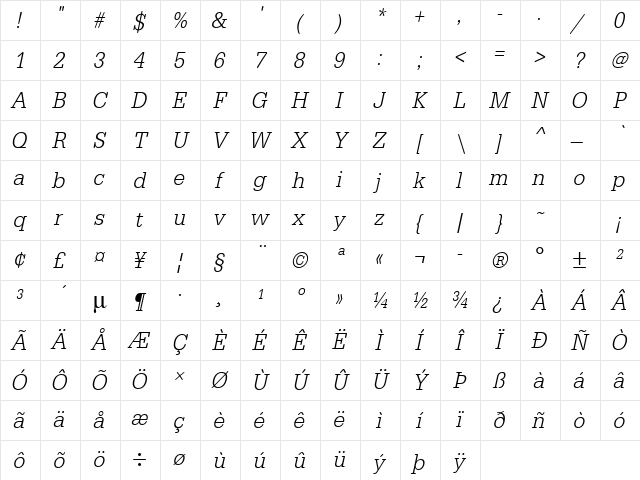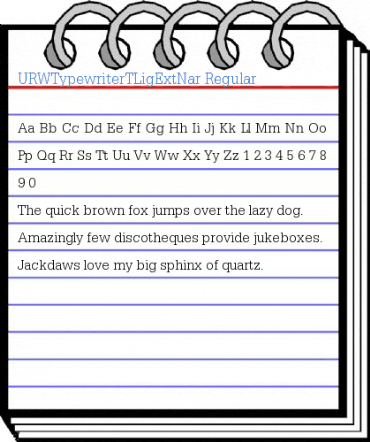
URWTypewriterTLigExtNar Oblique Free Font
URWTypewriterTLigExtNar Oblique
Style: Oblique
Design Context for URWTypewriterTLigExtNar
URWTypewriterTLigExtNar uses fixed-width spacing throughout, giving it the structured, systematic character associated with coding environments and technical documentation. The slanted form adds forward momentum and visual energy.
Well-suited to data-driven dashboards, coding tutorials, and any design that wants to reference the world of programming.
Font Pairing: Pairs well with a humanist sans-serif for body copy - the contrast between mechanical precision and organic warmth creates a compelling typographic dynamic.
Pro Tip: Use URWTypewriterTLigExtNar with slightly increased line-height for extended reading - fixed-width spacing can feel dense in longer passages without extra breathing room.